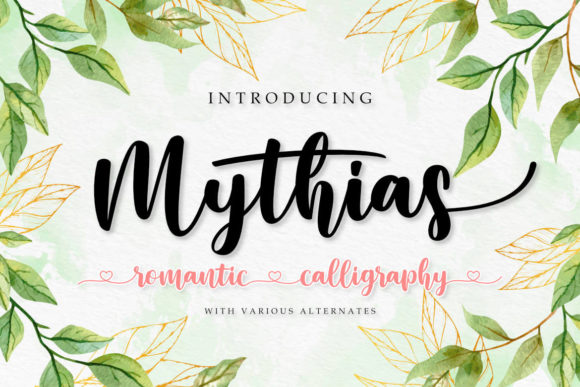
Mythias Font: A Romantic and Sweet Calligraphy Typeface
In the world of typography, fonts play a crucial role in conveying the tone and personality of a design project. Among the numerous font styles available, calligraphy typefaces have gained immense popularity for their elegance and sophistication. One such font that has caught the attention of designers and typography enthusiasts is Mythias Font. In this article, we’ll delve into the features, benefits, and uses of Mythias Font, a romantic and sweet calligraphy typeface that can add a luxury spark to any design project.
What is Mythias Font?
Mythias Font is a beautiful, hand-crafted calligraphy typeface designed to bring a touch of romance and sweetness to your designs. Its unique characters dance along the baseline, creating a sense of movement and fluidity. This font is perfect for designers who want to add a luxurious feel to their projects, whether it’s a branding campaign, a wedding invitation, or a packaging design.
Key Features of Mythias Font
- Romantic and Sweet: Mythias Font exudes a sense of romance and sweetness, making it perfect for designs that require a touch of elegance and sophistication.
- Luxury Spark: The font’s unique characters and flowing lines add a luxury spark to any design project, making it ideal for high-end branding, packaging, and advertising campaigns.
- Calligraphy Style: Mythias Font is a true calligraphy typeface, with characters that are carefully crafted to mimic the fluid strokes of a calligraphy pen.
Benefits of Using Mythias Font
Using Mythias Font in your design projects can bring numerous benefits. Here are a few:
- Elegance and Sophistication: Mythias Font adds a touch of elegance and sophistication to any design project, making it perfect for high-end branding and advertising campaigns.
- Unique and Creative: The font’s unique characters and flowing lines make it stand out from other fonts, allowing you to create unique and creative designs that capture attention.
- Versatility: Mythias Font is versatile and can be used in various design projects, from branding and packaging to wedding invitations and advertising campaigns.
Uses of Mythias Font
Mythias Font is a versatile typeface that can be used in various design projects. Here are some examples:
- Branding and Logo Design: Mythias Font is perfect for creating elegant and sophisticated logos for high-end brands.
- Wedding Invitations: The font’s romantic and sweet style makes it ideal for wedding invitations, save-the-date cards, and other wedding-related designs.
- Packaging Design: Mythias Font can add a luxury spark to packaging designs, making it perfect for high-end product packaging.
- Advertising Campaigns: The font’s unique and creative style makes it suitable for advertising campaigns that require a touch of elegance and sophistication.
Tips for Using Mythias Font
Here are some tips for using Mythias Font effectively in your design projects:
- Pair it with Neutral Fonts: Pair Mythias Font with neutral fonts, such as sans-serif or serif fonts, to create a balanced and harmonious design.
- Use it for Headlines: Use Mythias Font for headlines and titles to add a touch of elegance and sophistication to your designs.
- Experiment with Colors: Experiment with different colors to find the perfect match for your design project. Mythias Font looks great with metallic colors, pastels, and rich jewel tones.
- Pay Attention to Kerning: Pay attention to kerning and tracking to ensure that the font’s unique characters and flowing lines are properly spaced.
Mythias Font is a romantic and sweet calligraphy typeface that can add a luxury spark to any design project. Its unique characters, flowing lines, and PUA encoding make it a versatile and creative font that can be used in various design projects. With its elegance and sophistication, Mythias Font is perfect for high-end branding, wedding invitations, packaging design, and advertising campaigns. By following the tips outlined in this article, you can use Mythias Font effectively and create stunning designs that capture attention.
- What is Mythias Font? Mythias Font is a romantic and sweet calligraphy typeface designed to add a luxury spark to any design project.